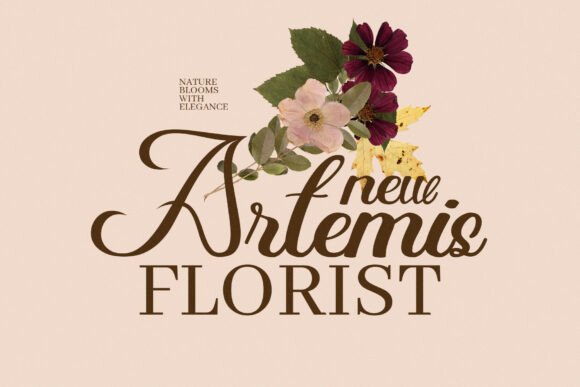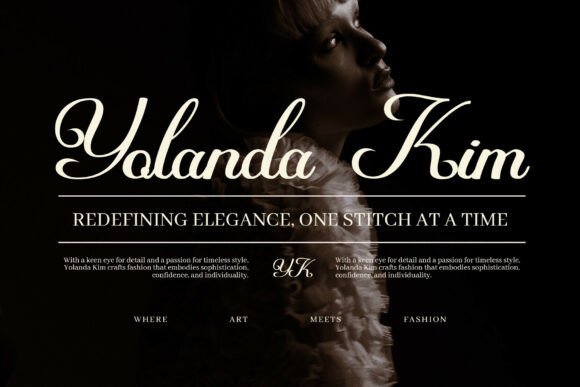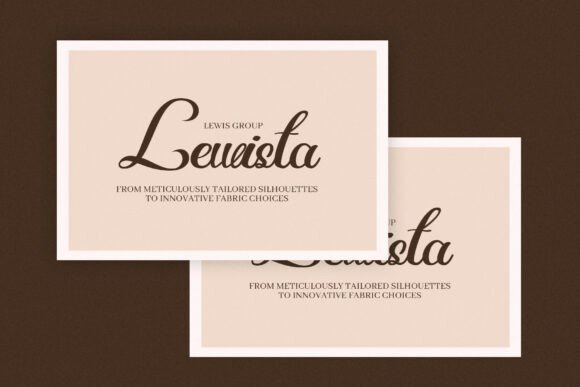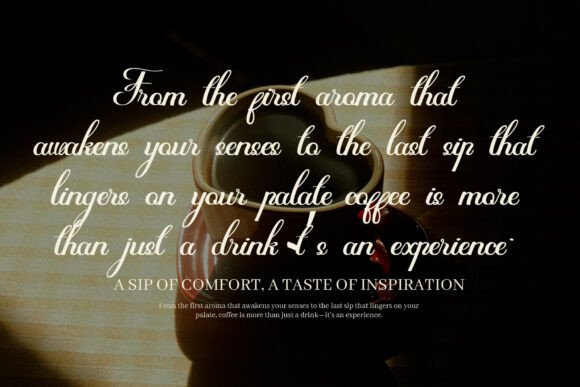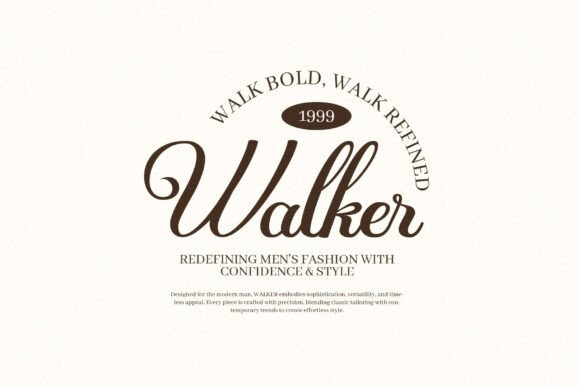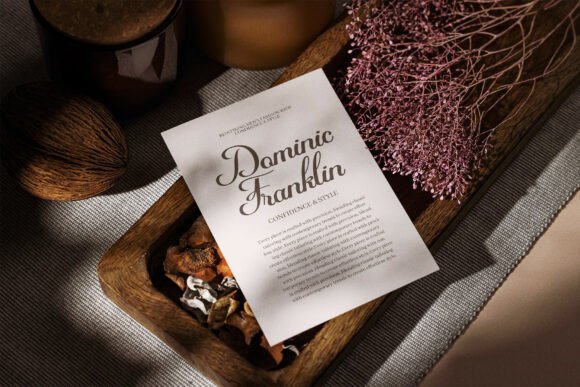
The Perfect Script Font for Your Creative Masterpiece
Remember the moment when you’re brainstorming ideas for a wedding invitation or a logo, and you’re stuck on finding the perfect font to convey the elegance and sophistication of your design? That’s where the magic happens, and you stumble upon the perfect script font that elevates your project to the next level.
Georky Wedding Script Font is that magic moment in a bottle. This beautifully crafted, elegant script font is designed to add a timeless and classy touch to your creative projects. With its smooth curves and many alternate calligraphy styles, Georky Wedding Script Font enhances your designs in a sophisticated way, making every project look stylish and refined. Whether you’re working on weddings, branding, logos, or invitations, this font is the perfect addition to your design toolkit.
Georky Wedding Script Font Key Features
- Font Style: Handwritten, Script, Wedding
- Unique Characteristics: Includes swashes, flourishes, and decorative elements to add a touch of elegance and sophistication to wedding designs
- Language Support: Supports multiple languages, including English, Spanish, French, German, Italian, and more
Georky Wedding Script Font Review
First off, I want to say that I was initially drawn to Georky Wedding Script Font due to its beautiful, elegant aesthetic. The font features ✨ beautiful swashes and flourishes that make it perfect for wedding invitations, announcements, and other special occasions.
Another thing that I appreciate about Georky Wedding Script Font is its ✨ versatility. It can be used for a variety of projects, from formal events to more casual celebrations. The font also has a ✨ unique feel to it, which sets it apart from more traditional script fonts.
- ⚠️ Limited character set: Georky Wedding Script Font has a relatively limited character set, which can make it difficult to use for longer blocks of text.
- ⚠️ Not ideal for body text: Due to its decorative nature, Georky Wedding Script Font is not well-suited for body text and may be difficult to read in larger quantities.
Overall, I would give Georky Wedding Script Font 4 out of 5 stars. While it has some limitations, its unique aesthetic and versatility make it a great choice for special occasions and events. With a little creativity, you can make it work for a variety of projects.
Getting the Most Out of Georky Wedding Script Font
Use Georky Wedding Script Font to add a touch of elegance and sophistication to your wedding invitations, stationery, and other wedding-related designs.
Experiment with different font sizes and colors to create a unique and eye-catching look.
Pair Georky Wedding Script Font with other elegant fonts to create a beautiful and harmonious typography.
Wedding programs and menus
Wedding website and social media graphics
Alternatives to Georky Wedding Script Font
Great Vibes is a beautiful, elegant script font perfect for wedding invitations, stationery, and other special occasions. Its flowing lines and delicate flourishes evoke a sense of romance and sophistication. It’s ideal for designers who want to create a classic, timeless look. Compared to Georky Wedding Script Font, Great Vibes is more refined and less ornate, making it a great choice for those who want a subtle, yet elegant look.
Carolyna Pro is a modern script font with a touch of vintage charm. Its unique blend of elegance and playfulness makes it perfect for designers who want to add a bit of whimsy to their projects. It’s ideal for wedding invitations, branding, and other creative projects where a unique, eye-catching font is needed. Compared to Georky Wedding Script Font, Carolyna Pro is more modern and has a bolder, more confident feel.